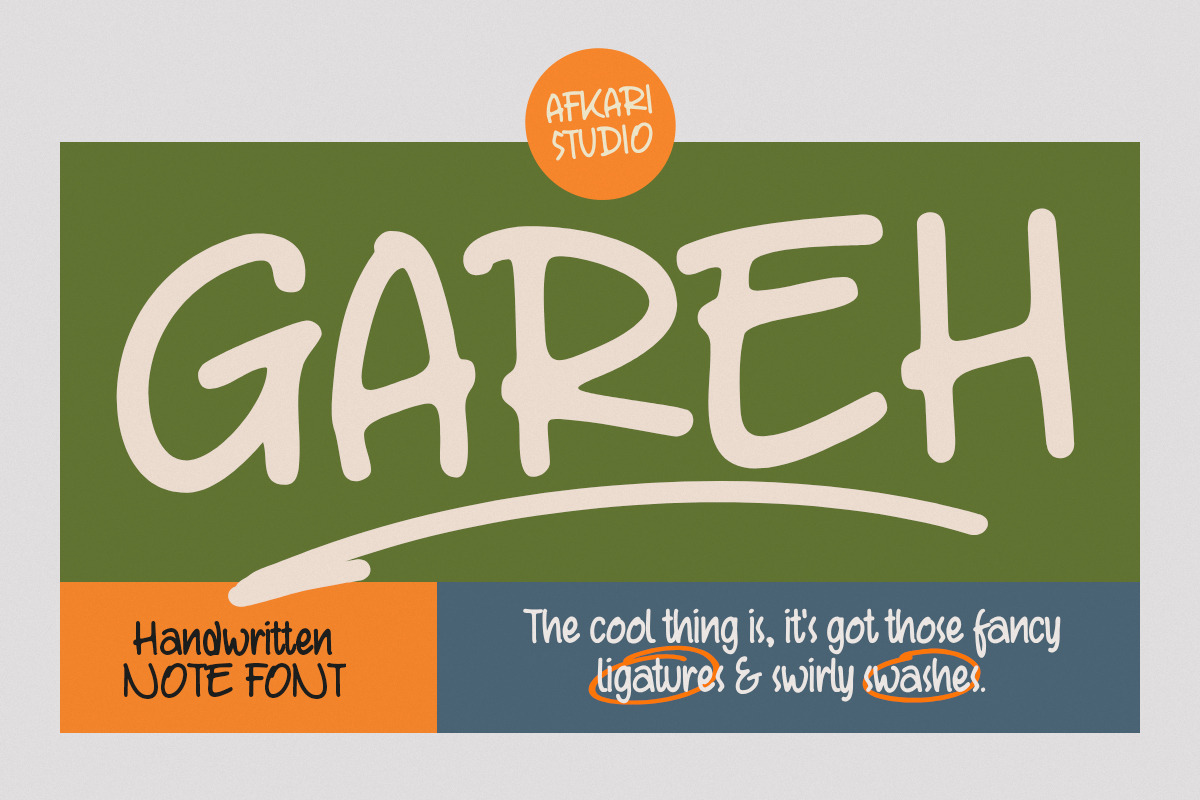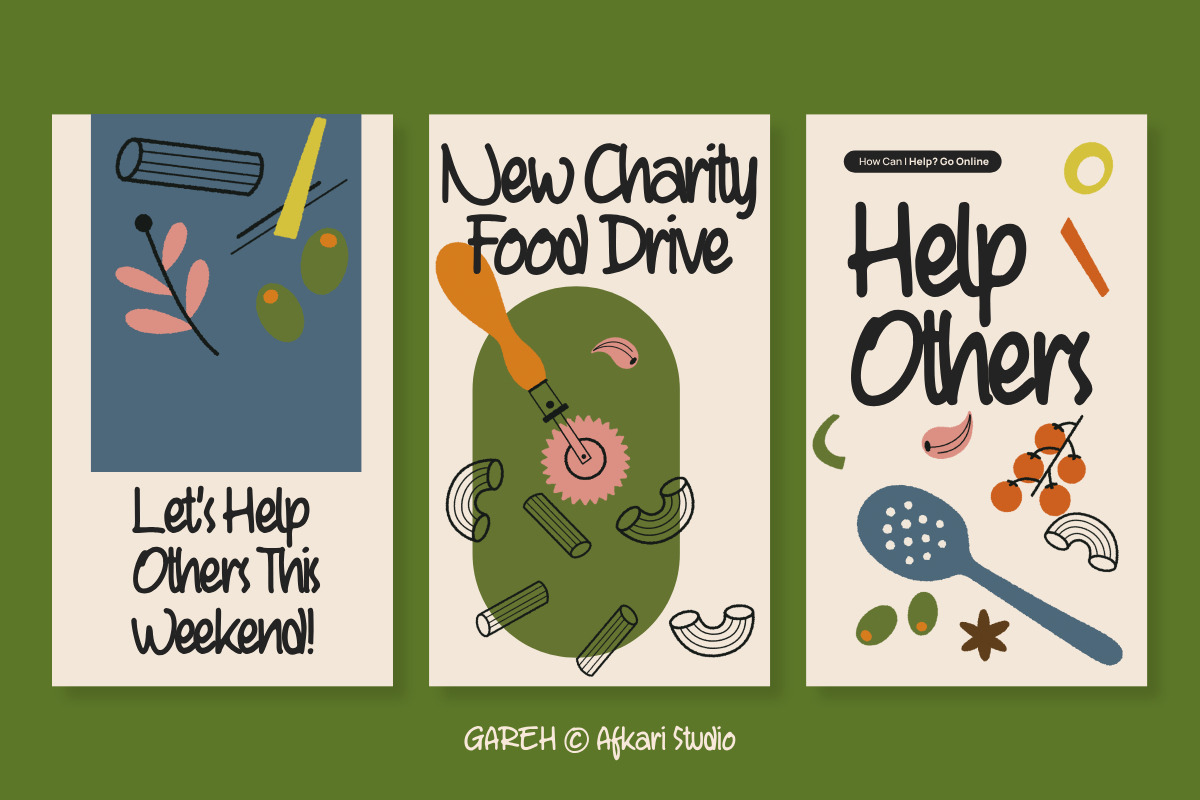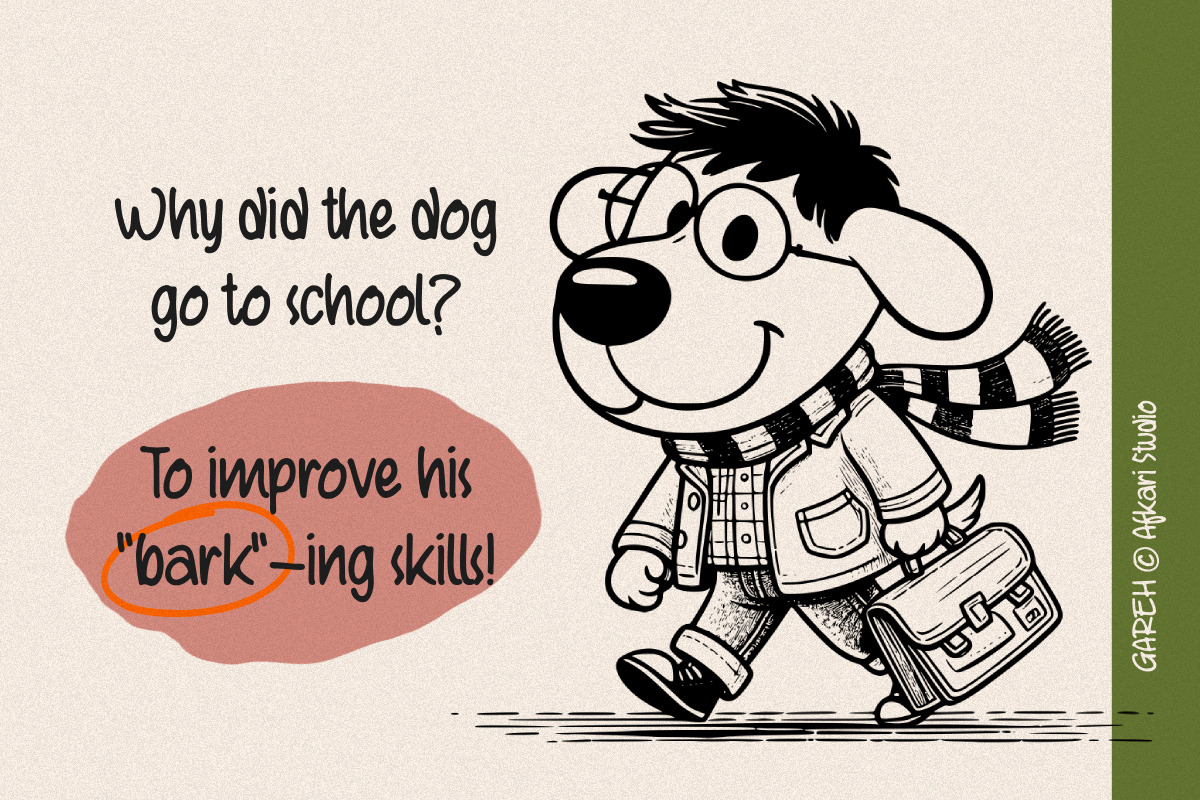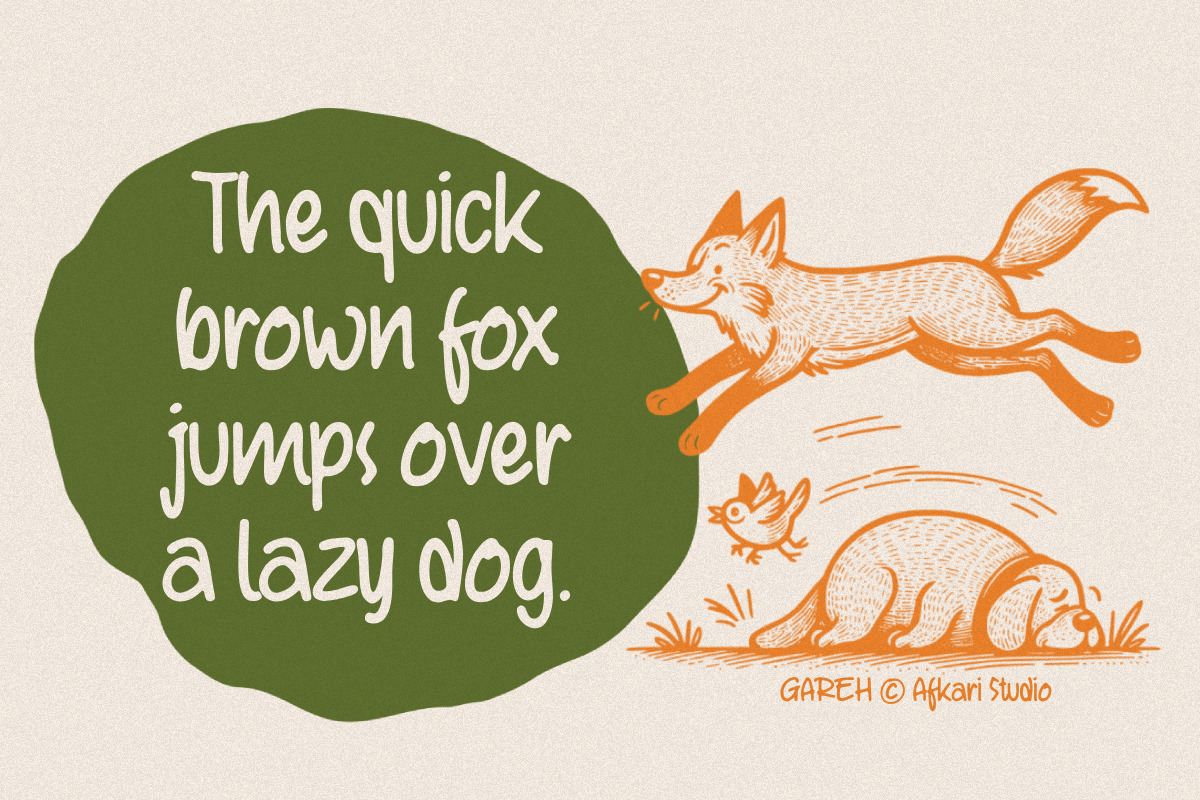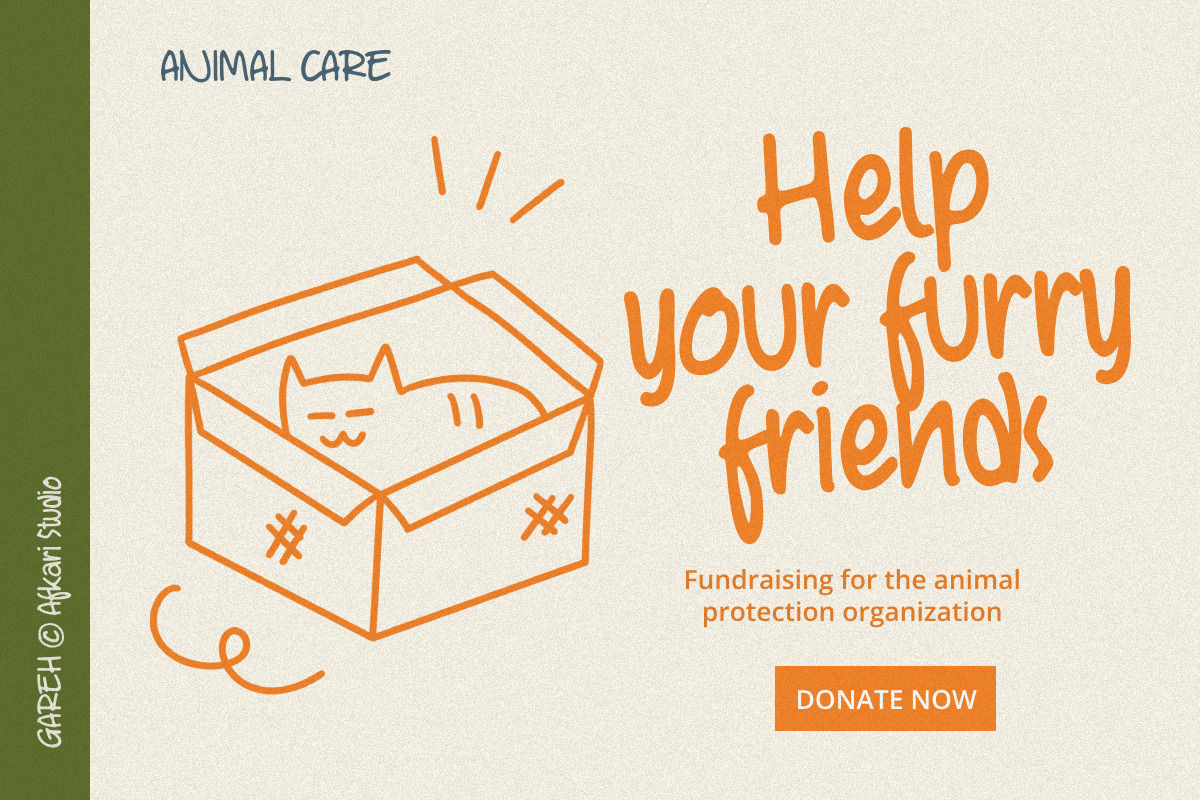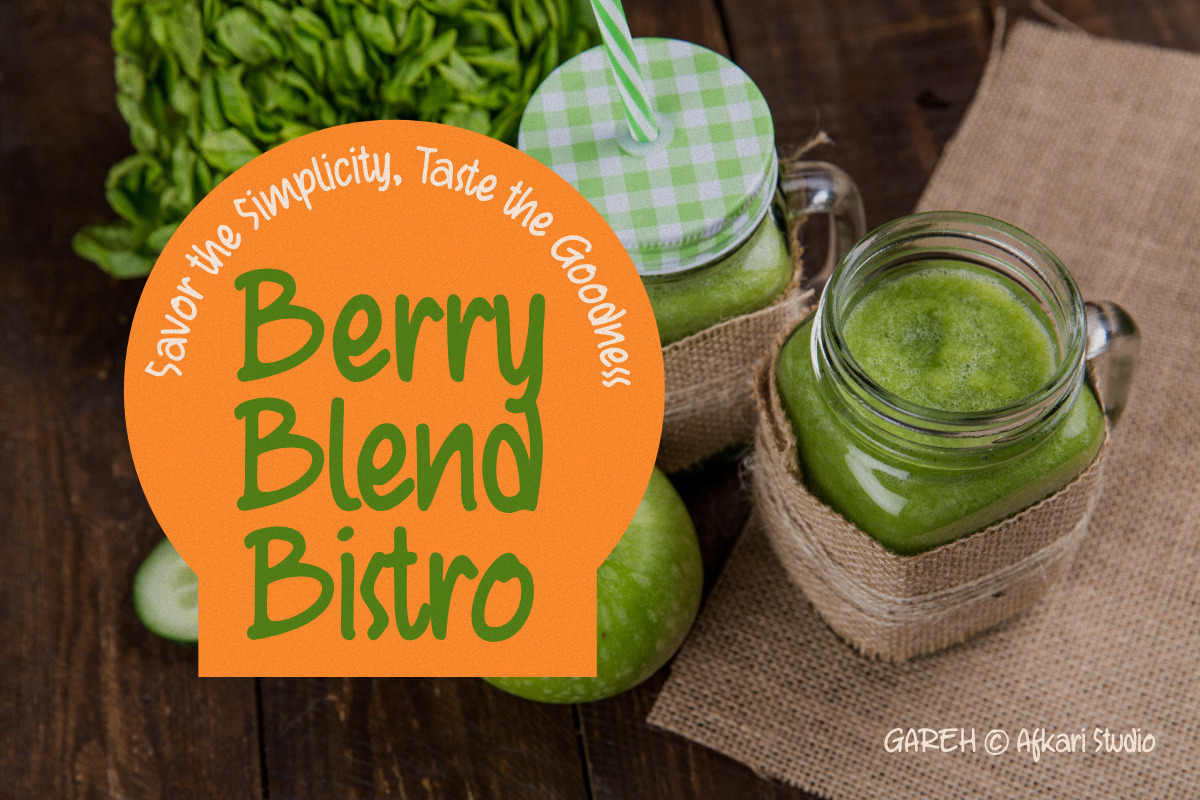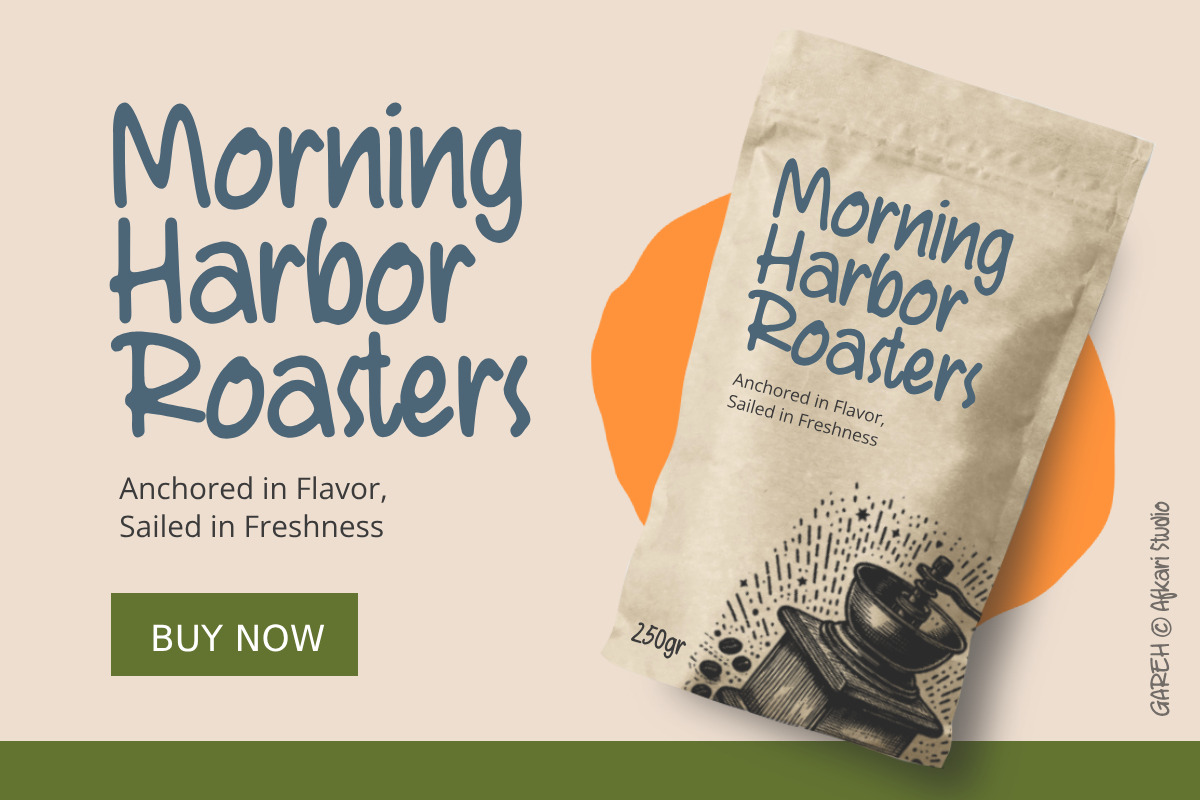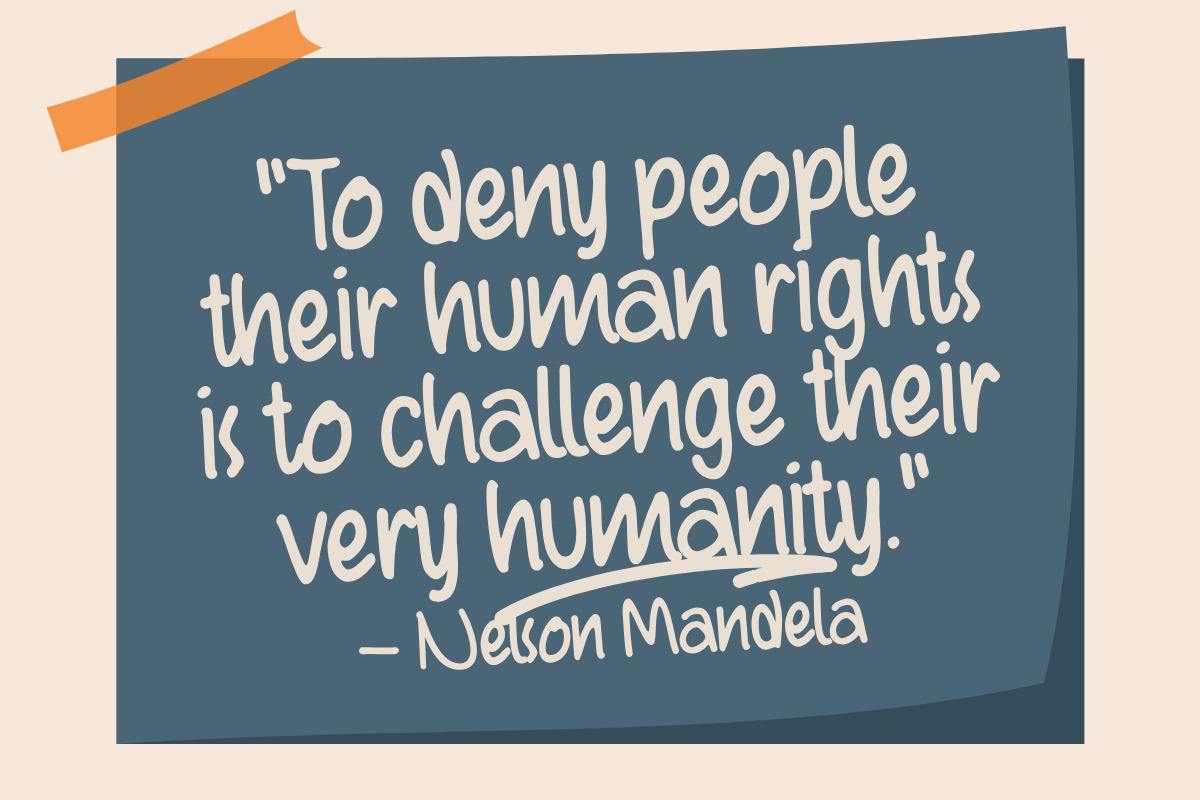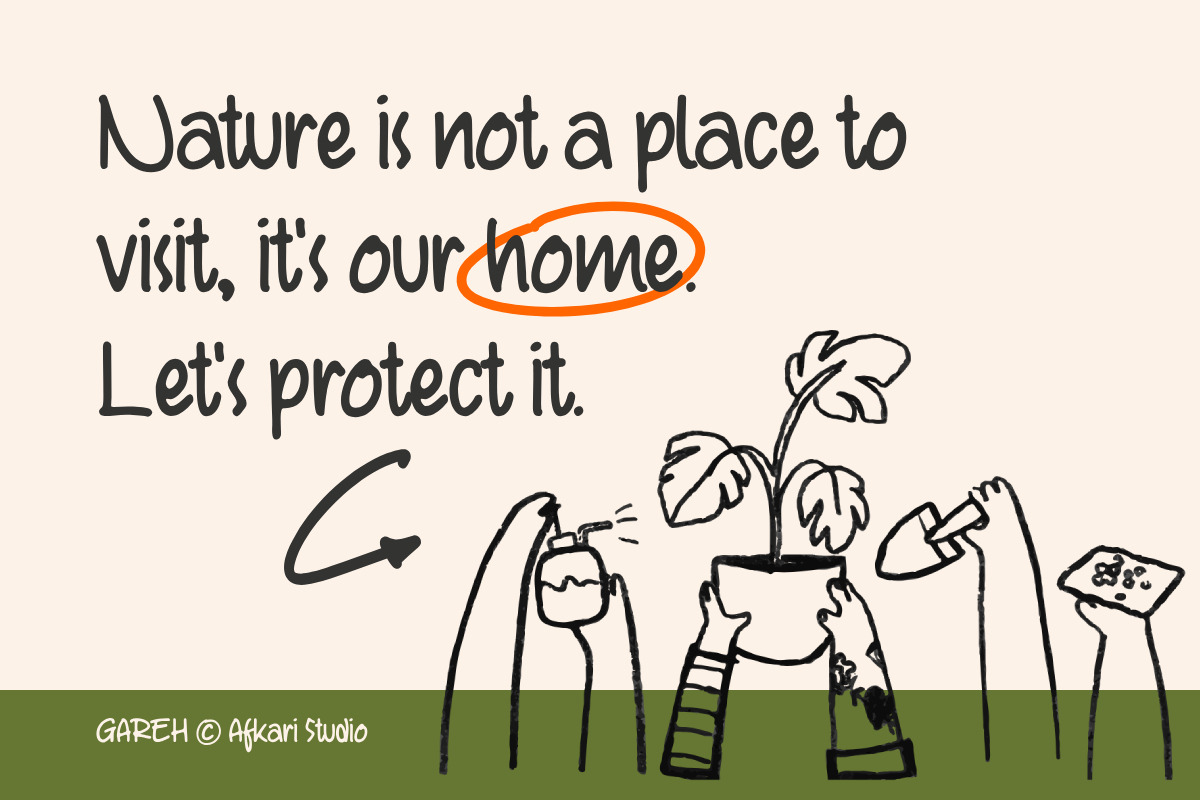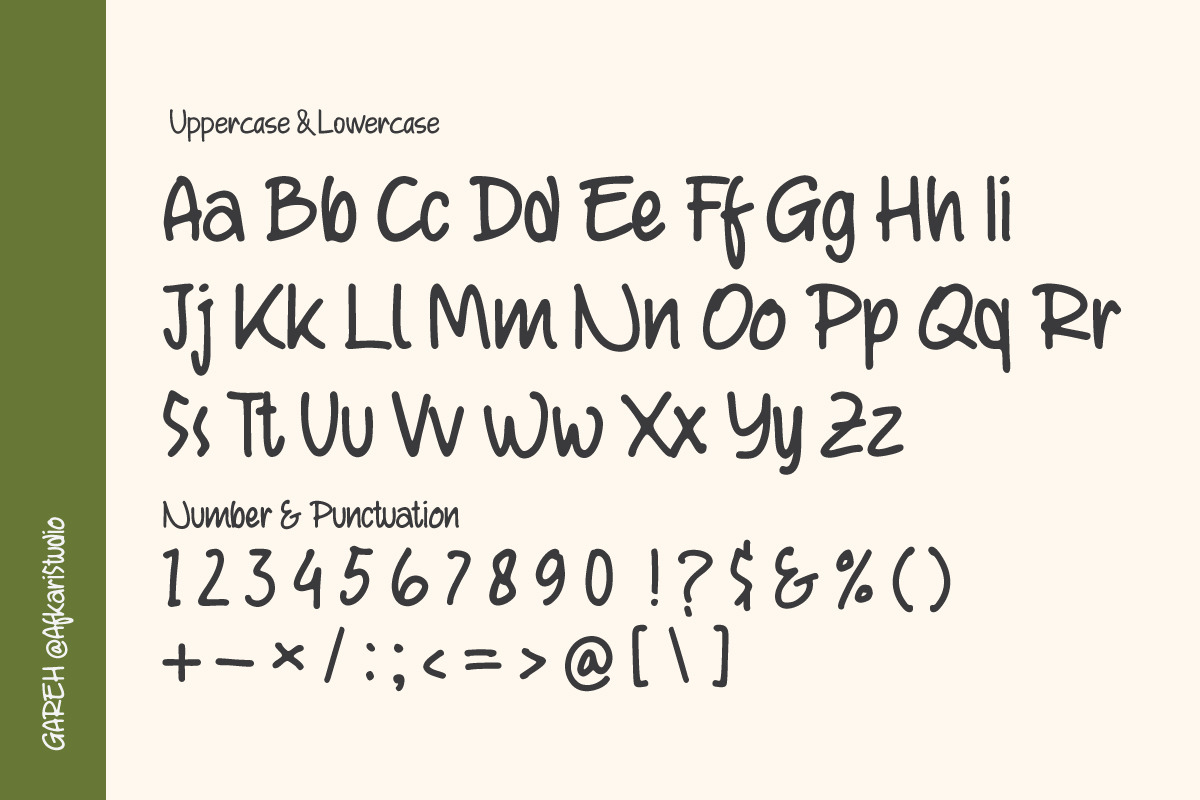
Gareh - Handwritten Marker Note Font
Introducing Gareh Handwritten Marker Note Font, a font that merges the liveliness of handwritten script with a unique, natural touch. Crafted to captivate attention and infuse a fresh vibe into your designs, Gareh strikes the perfect balance between the elegance of handwriting and a casual feel. With expressive characters and authentic marker accents, each letter exudes warmth and originality.
Gareh is the ideal solution for design projects seeking a personal and creative touch. Whether you're creating posters, greeting cards, logos, or working on branding projects, this font will leave an unforgettable impression. Every stroke brings inviting warmth and inspirational vibes.
Highlighted Features:
- Uppercase, Lowercase, Number, and Punctuation
- Special alternates and ligatures
- Mültîlíñgúãl Sùppört for; ä ö ü Ä Ö Ü ß ¿ ¡